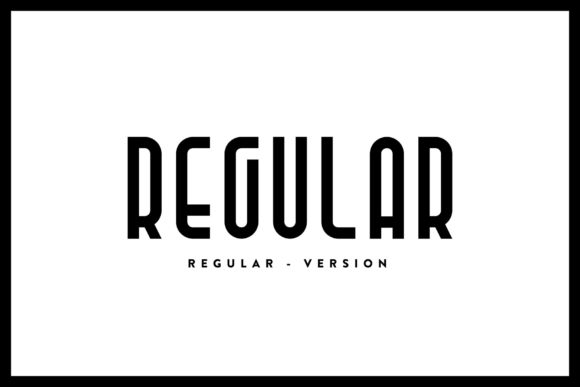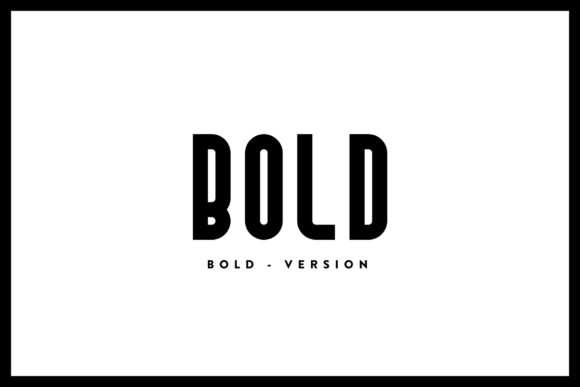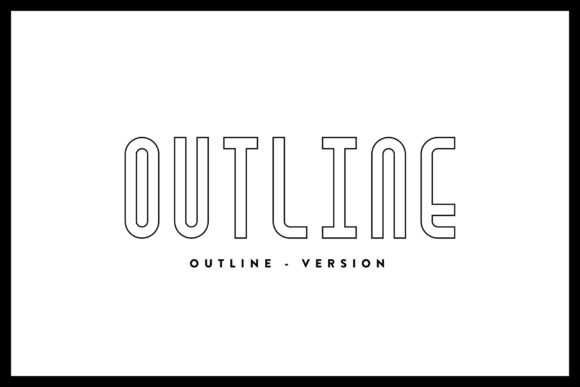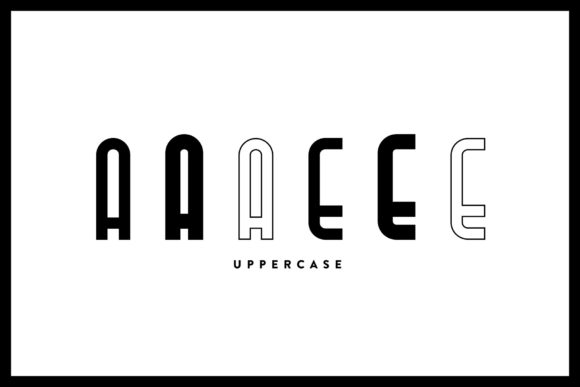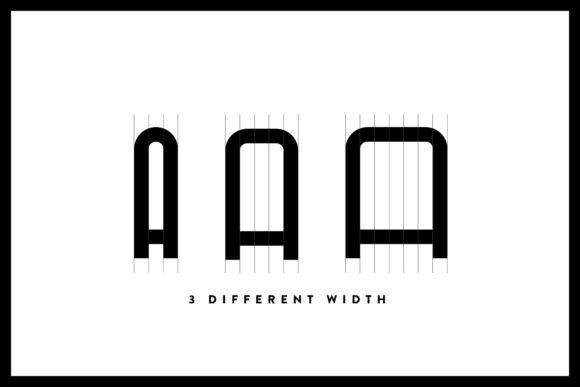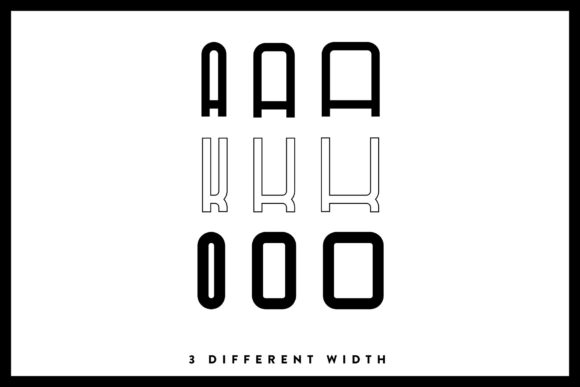
Introducing Calypso Font: A Modern Display Font with a Futuristic Feel
In the world of typography, fonts play a crucial role in conveying messages, expressing emotions, and adding aesthetic appeal to designs. For designers and crafters, finding the perfect font can be a daunting task, especially when looking for something that combines modernity with a futuristic feel. This is where Calypso Font comes in – a stunning display font that is simple, easy to use, and perfect for adding a touch of elegance to various craft designs.
What Makes Calypso Font Stand Out?
Calypso Font is a modern display font that boasts a futuristic feel, making it ideal for designers who want to create eye-catching and unique designs. Its simplicity and ease of use make it accessible to crafters of all levels, from beginners to professionals. One of the standout features of Calypso Font is its PUA (Private Use Area) encoding, which allows users to access all glyphs and swashes with ease. This means that designers can experiment with different combinations of characters and swashes to create stunning text arrangements.
The Benefits of Using Calypso Font
So, what are the benefits of using Calypso Font in your designs? Here are a few:
- Unique and Modern Look: Calypso Font has a distinct, modern look that will set your designs apart from the rest. Its futuristic feel adds a touch of sophistication, making it perfect for designs that require a bit of edge.
- Ease of Use: Despite its complex appearance, Calypso Font is incredibly easy to use. Its simple and intuitive design makes it easy to navigate, even for those who are new to font design.
- Versatility: Calypso Font is versatile and can be used in a variety of design contexts, from crafting and scrapbooking to branding and advertising.
- PUA Encoding: The PUA encoding of Calypso Font means that users have access to a wide range of glyphs and swashes, allowing for endless creative possibilities.
How to Use Calypso Font in Your Designs
Using Calypso Font in your designs is easy. Here are a few tips to get you started:
- Pair it with Other Fonts: Calypso Font looks great when paired with other fonts. Experiment with different combinations to create visually appealing text arrangements.
- Experiment with Swashes: The PUA encoding of Calypso Font means that you have access to a range of swashes that can add a touch of elegance to your designs.
- Use it for Headings and Titles: Calypso Font is perfect for headings and titles, where its modern and futuristic feel can really shine.
Why Designers and Crafters Love Calypso Font
Designers and crafters love Calypso Font for its unique combination of modernity and futurism. Here are a few reasons why:
- Perfect for Branding and Advertising: Calypso Font is perfect for branding and advertising projects, where its modern and futuristic feel can help to create a lasting impression.
- Ideal for Crafting and Scrapbooking: Calypso Font is also ideal for crafting and scrapbooking projects, where its elegance and sophistication can add a touch of glamour.
- Great for Web Design: Calypso Font can also be used in web design, where its clean and modern lines can help to create a visually appealing website.
In conclusion, Calypso Font is a stunning modern display font with a futuristic feel that is perfect for designers and crafters looking to add a touch of elegance to their designs. Its simplicity, ease of use, and PUA encoding make it a versatile font that can be used in a variety of design contexts. Whether you’re working on a branding project, crafting and scrapbooking, or web design, Calypso Font is sure to impress. So why not give it a try and see the difference it can make to your designs?